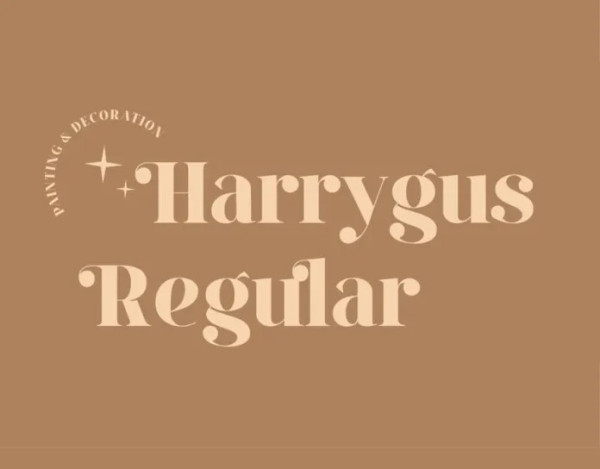
Harrygus Font
Harrygus Font is serif decorative display typeface has a beautiful and aesthetic look. It’s designed and shared by Wajik co. This font is suitable for modern vintage retro designs. You can use this font on posters, banners, logos, headline projects and more. This font features alternate, ligature and multilingual supports.